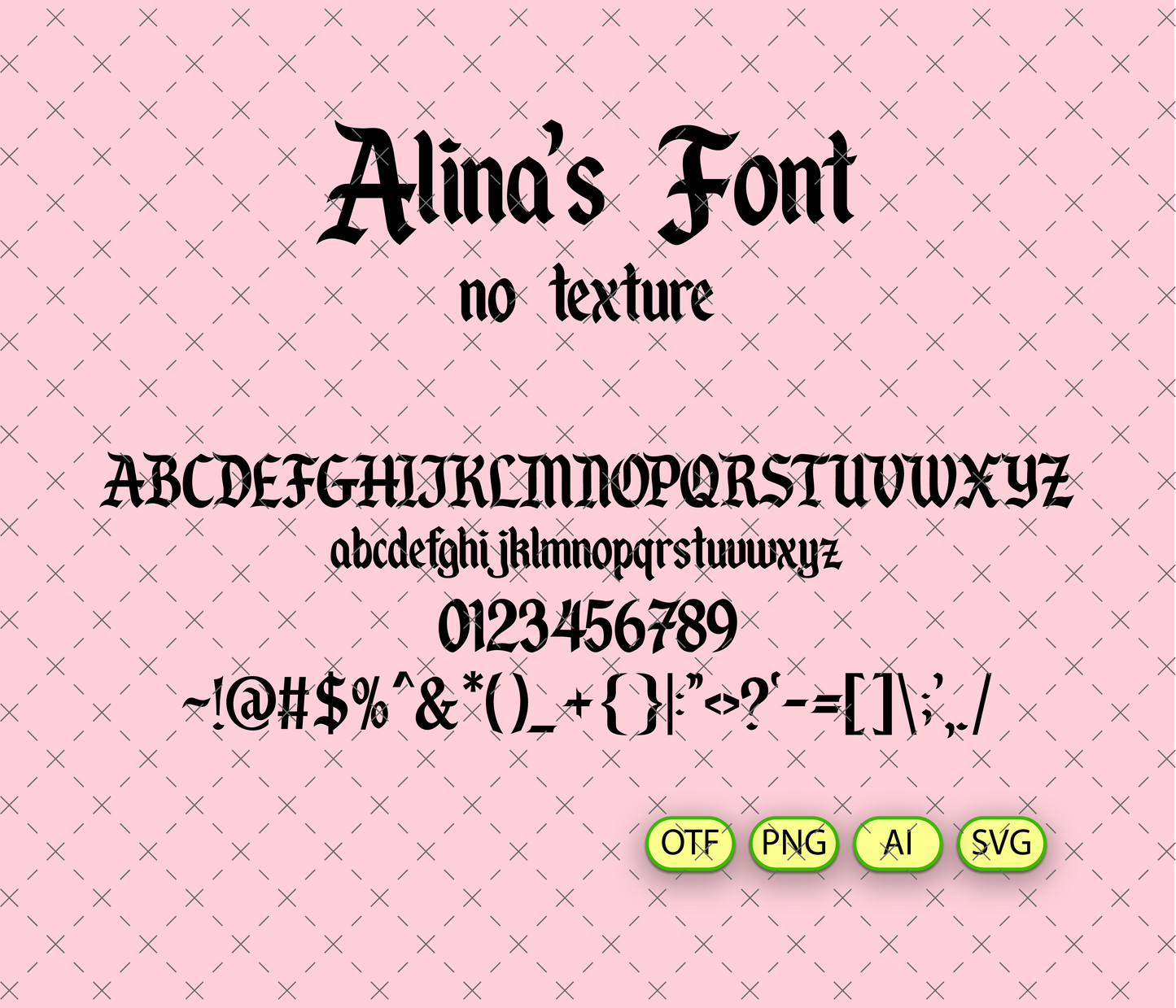
Dreamy Parade Font
Step into the jubilant spectacle of enchanted processions and floating float wonder with our Dreamy Parade Font, capturing the essence of beloved costumed character marches and timeless celebratory kingdom pageantry. Perfect for fantasy celebration planners, parade enthusiast communities, children's entertainment producers, and whimsical design specialists, this font brings the vibrant, joyful character of legendary magical procession narratives to your projects. Create spellbinding invitations, commercial goods, or web content with the luminous presence of confetti-filled kingdom storytelling.
Clean Joyful Typography for Parade Design & Enchanted Procession Projects
Our Dreamy Parade Font features vibrant, lovingly sculpted letterforms with crisp, editable outlines reflecting the world of beloved costumed character processions and legendary celebratory kingdom pageantry. Unlike the textured version, this clean font lets you apply your own colors, effects, and finishes — total creative freedom.
- Event Promotions: Craft showstopping invitations, banners, and displays for parade-themed celebrations, costumed character gatherings, and magical procession events that radiate the jubilant spirit of timeless kingdom pageantry entertainment
- Merchandise Design: Perfect for apparel, wall prints, adhesive graphics, and collectibles that showcase the vibrant aesthetic of enchanted parade and costumed character kingdom themes — customize colors to match any palette
- Digital Media: Enchant websites, content channels, and social platforms with joyful header designs and imagery that express the wonder of legendary costumed procession spectaculars and celebratory kingdom marches
- Creative Content: Add jubilant signature flair to character illustrations, parade artwork, and imaginative projects inspired by beloved costumed kingdom procession chronicles
- Personal Projects: Weave celebratory magic into memory albums, handcrafted items, and living space decorations inspired by the world of legendary enchanted parade characters
Our font pays tribute to the world of enchanted procession wonder and generation-spanning magical kingdom pageantry culture, empowering your projects with its vibrant and joyful character. Whether crafting celebration materials, designing parade-themed products, or adding a costumed kingdom touch to personal projects, this font communicates the timeless essence of dreamy procession magic. Ready to weave jubilant enchantment into your creations? This font is your key to attention-grabbing, impactful design.